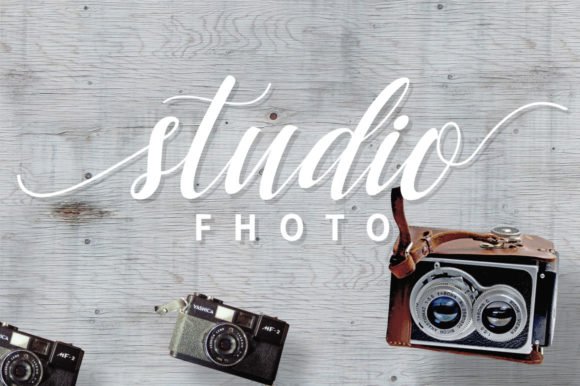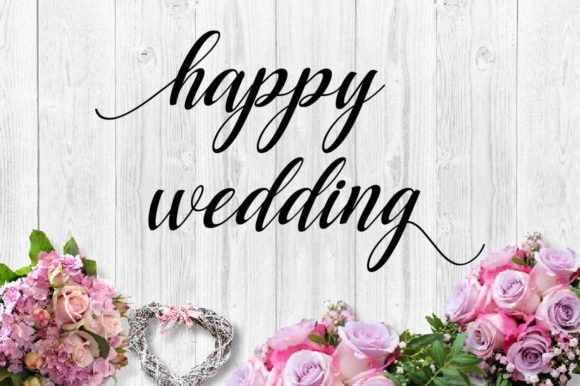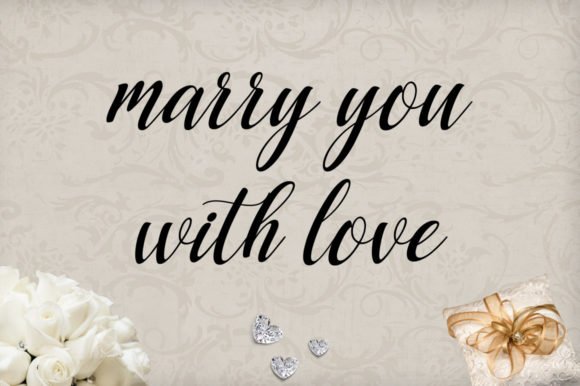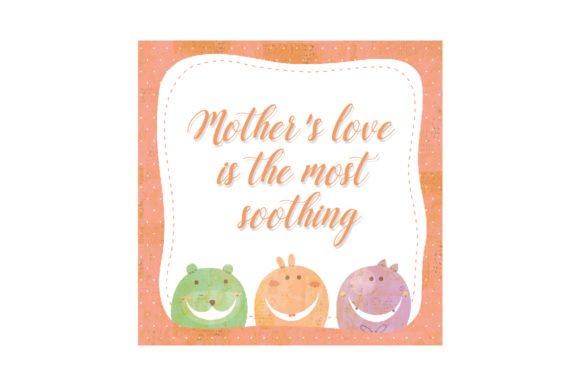
Aleria is a modern and stylish handwritten font. It has a thick body that is straight enough for logos, website headers, fashion designs, wedding card designs, and more. This font is PUA encoded, which means you can access all of the glyphs and swashes with ease!